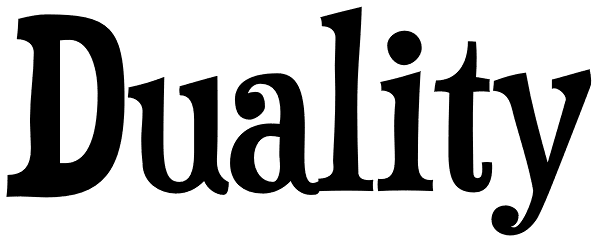
Duality
Duality is a rugged, condensed display font with class based kerning, math symbols, fractions and numeric ordinals.
Duality Sand
Duality Steel
Duality